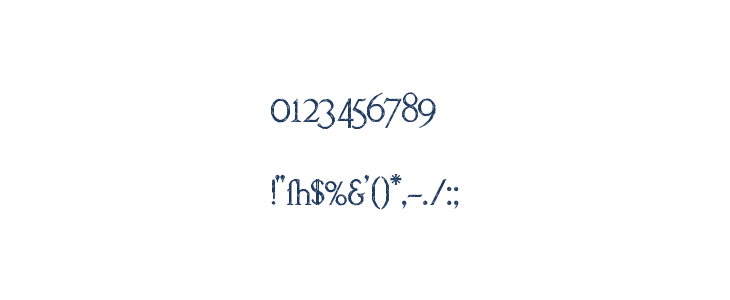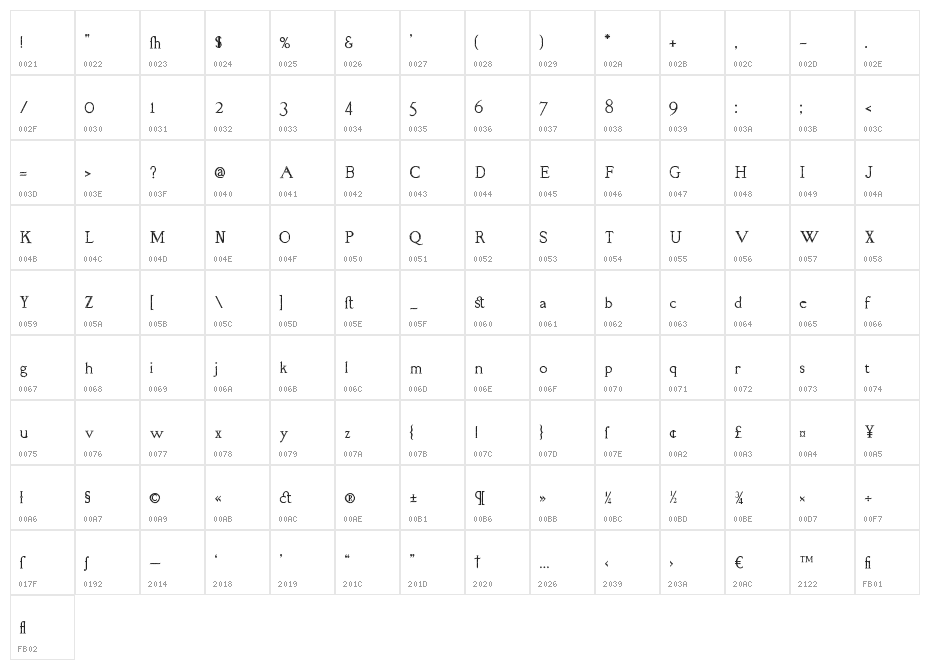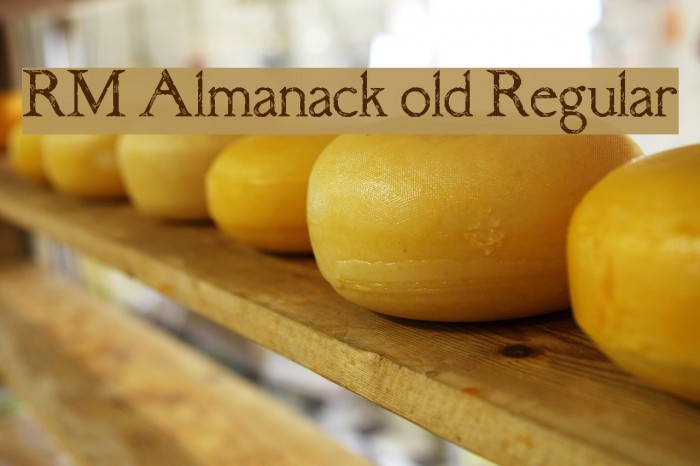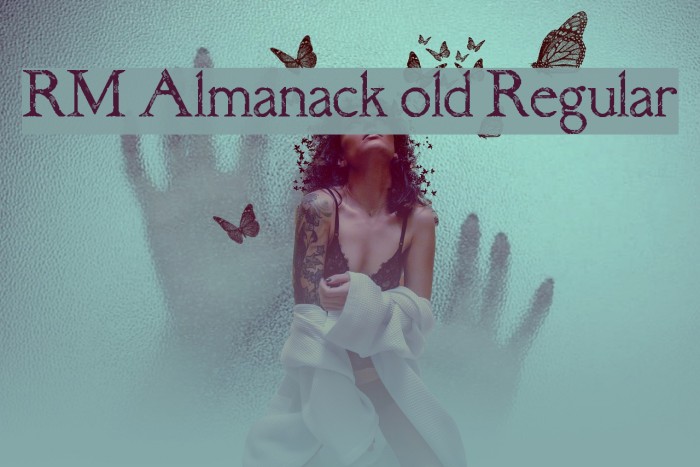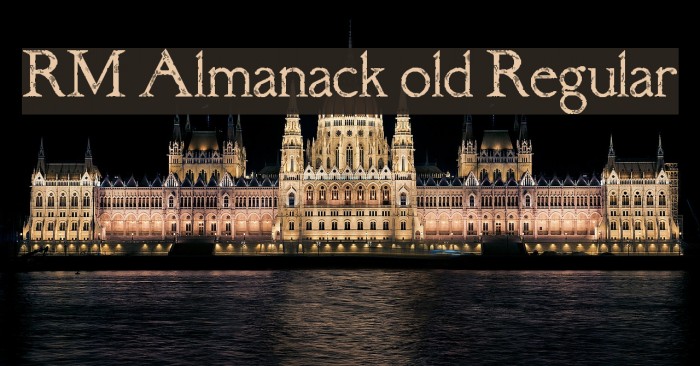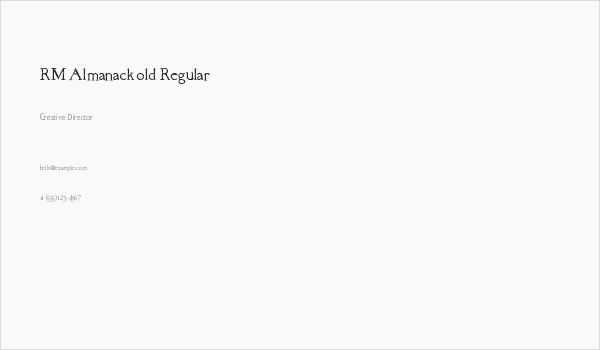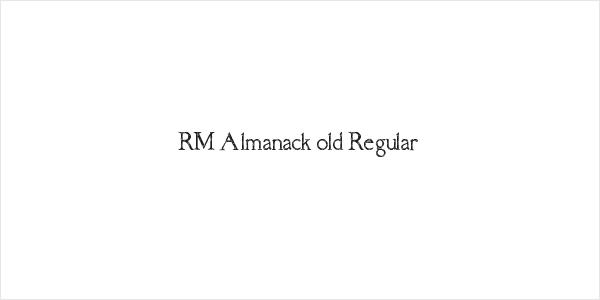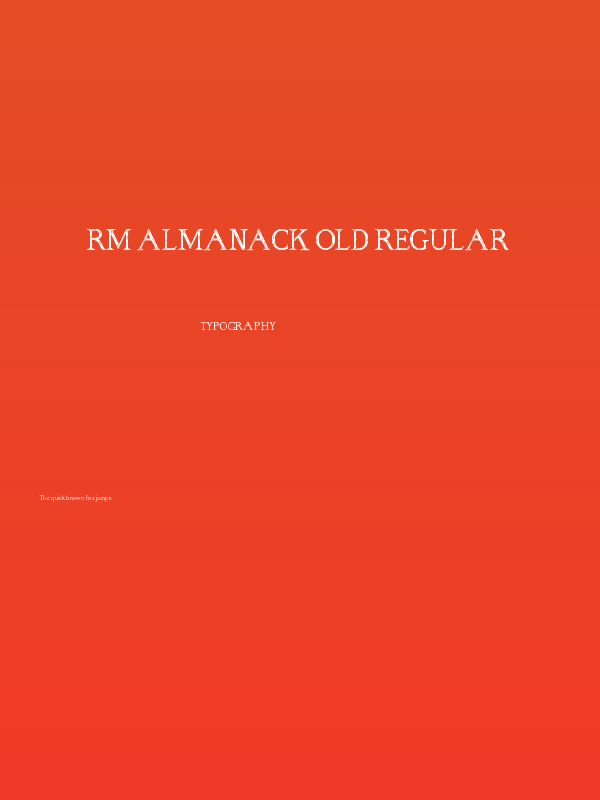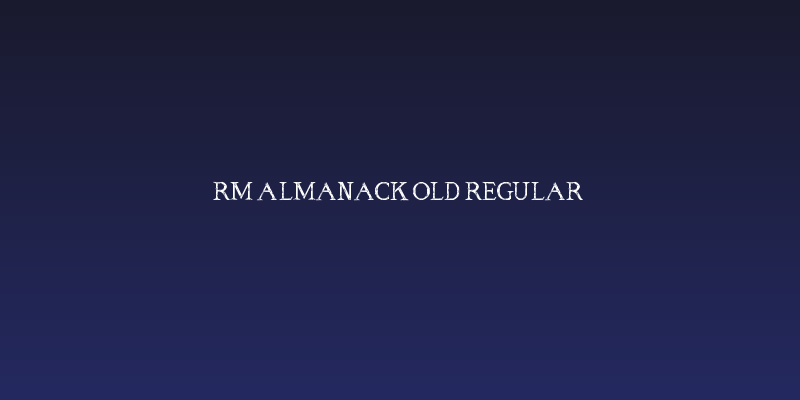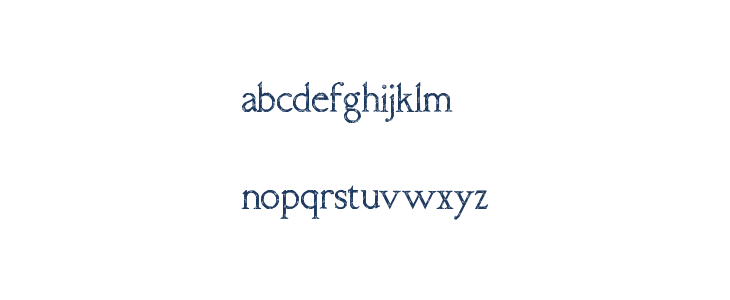
RM Almanack old Regular Font
RM Almanack old Regular Description
This font exudes a classic and vintage charm with its serif style, featuring slightly distressed edges that give it an aged, historical feel. The uppercase letters are bold and prominent, while the lowercase letters maintain a consistent flow with a touch of elegance. The numerals are clear and distinct, complementing the overall aesthetic. Special characters are well-integrated, maintaining the font's cohesive look. The font's design is reminiscent of old manuscripts, making it ideal for projects that require a touch of antiquity and sophistication.
Overall StyleVintage
Use CaseHeadlines, Logos, Book covers
Proposed ProjectsIdeal for historical documents, vintage-themed designs, book covers, and branding that requires a classic touch.